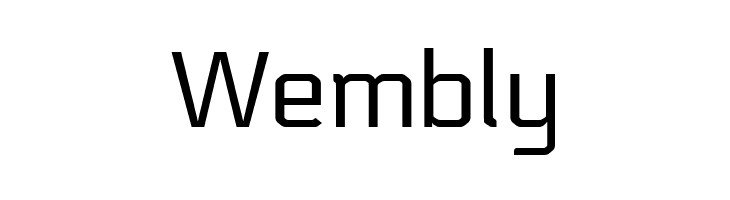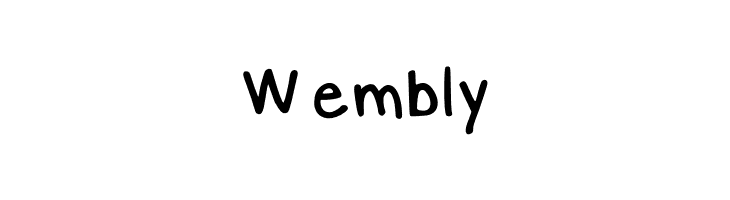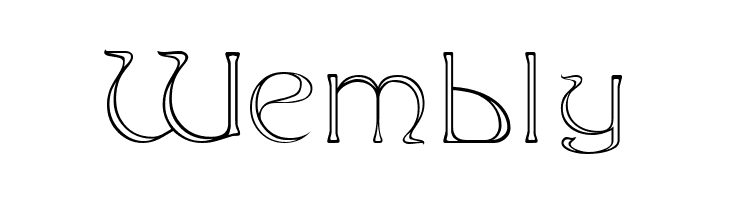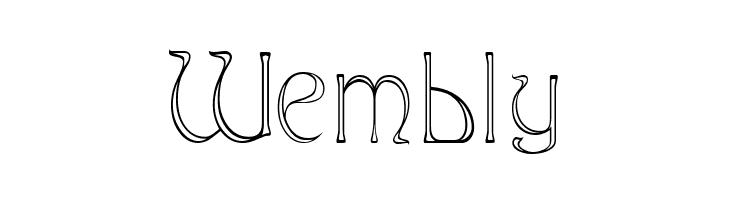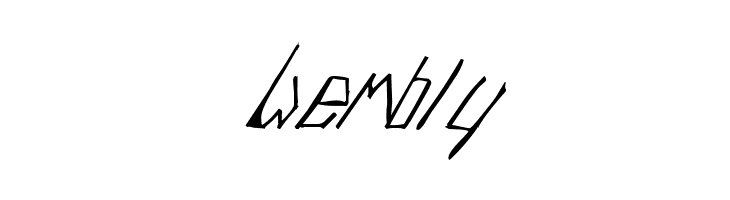
A decorative and narrow font with intricate curves and a modern-vintage style.
A decorative outline font with a blend of geometric and organic shapes.
A playful, face-themed decorative font with bold geometric shapes.
Abstract faces with geometric shapes, not a traditional font.
A dynamic, slanted font with angular, handwritten characteristics.
Education-themed dingbat font with detailed school-related illustrations.
Abstract, pill-shaped design with bold black and white patterns.
A bold, playful font with characters enclosed in oval shapes, ideal for decorative use.
A bold serif font enclosed in ovals, offering a decorative and impactful style.
A classic serif font with modern elegance and unique hieroglyphic symbols.
Decorative pictogram font inspired by Egyptian hieroglyphs.
Pictorial font inspired by Egyptian hieroglyphs.
A bold, hand-drawn style font with thick, uneven strokes.
A pictorial silhouette font evoking ancient Egyptian motifs.
A collection of Egyptian-themed illustrative icons depicting gods, symbols, and scenes.
A decorative set of icons inspired by ancient Egyptian culture and mythology.
A decorative font with cartoon-style Egyptian mythology illustrations.
A bold, slab serif font with a vintage yet modern appeal.
Egyptian-themed silhouette pictogram font with strong visual storytelling.
Ornate, illustrative font with abstract, tribal-inspired glyphs in ovals.
Ornamental display font using illustrated eggs for each character.
A decorative font inspired by ancient Mayan glyphs, featuring intricate and bold designs.
A science-themed illustrative display font with Einstein and physics motifs.
An abstract, decorative font featuring geometric symbols and artistic designs.
A bold, angular font with electrifying motifs and a modern, edgy style.
A modern, geometric sans-serif font with a clean, technical appearance.
A modern, geometric font with a technical and sleek design.
A decorative and abstract font inspired by electronic circuit diagrams.
Abstract, geometric display font with illustrated characters in square frames.
A bold, angular font with medieval influences and modern appeal.
A bold, blackletter-inspired font with ornate and dramatic letterforms.
A decorative font with abstract and illustrative characters, perfect for creative projects.